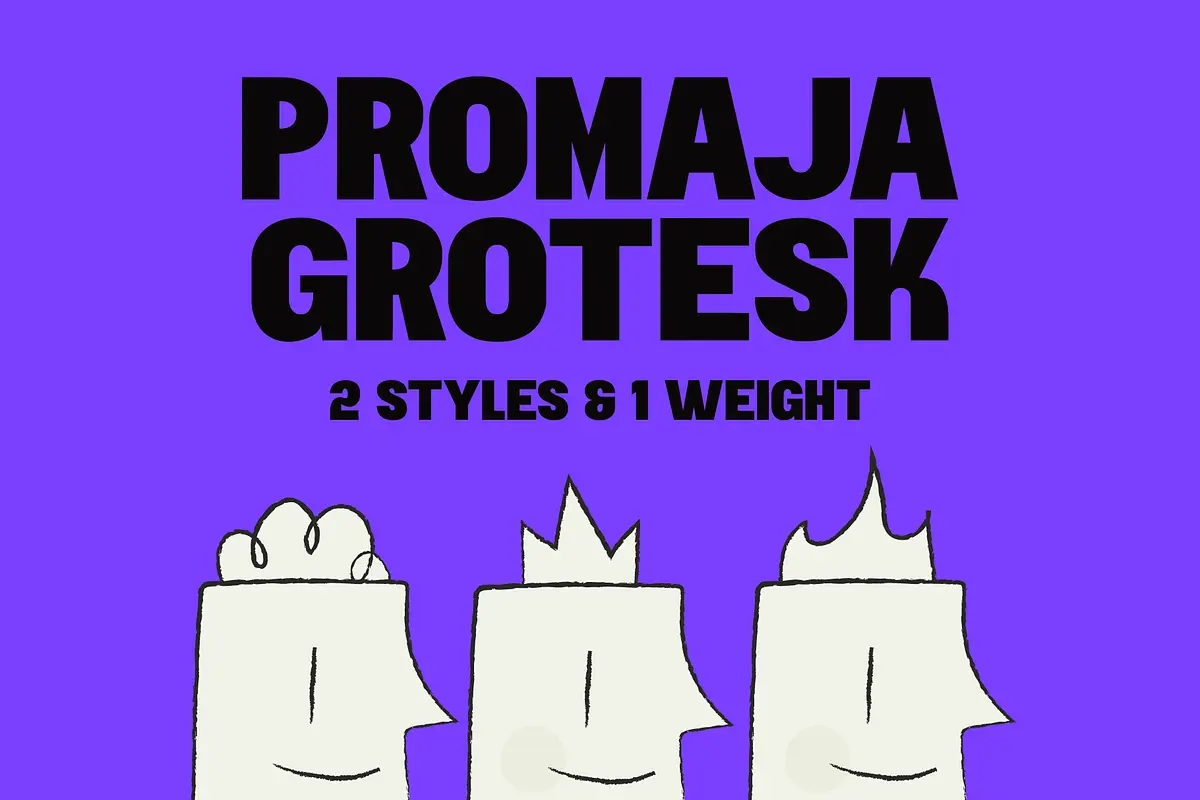
Promaja - Grotesk Type Free Download
The Promaja - Grotesk Type Free Download is a modern and versatile typeface that combines the clean, minimalistic style of grotesk design with a contemporary edge. Featuring strong, geometric letterforms, this font is perfect for creating bold branding, sleek logos, posters, and digital content. Whether you're working on a corporate project, a creative campaign, or a minimalist design, Promaja adds clarity and sophistication to your work.
Promaja - Grotesk Type Free Download is ideal for designers looking for a font that combines modern style with high readability. Perfect for corporate branding, web design, and high-visibility marketing materials, this font will help your projects stand out. Download it today and enhance your designs with Promaja's sleek, professional look!